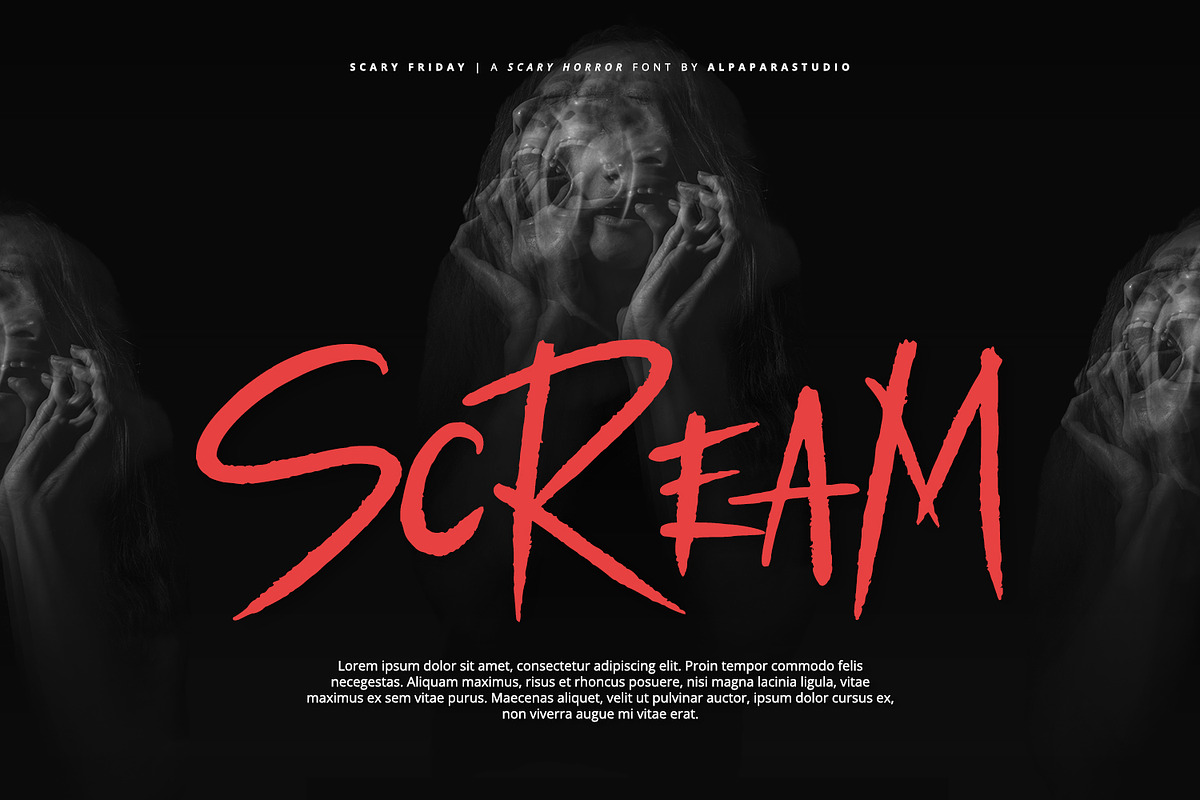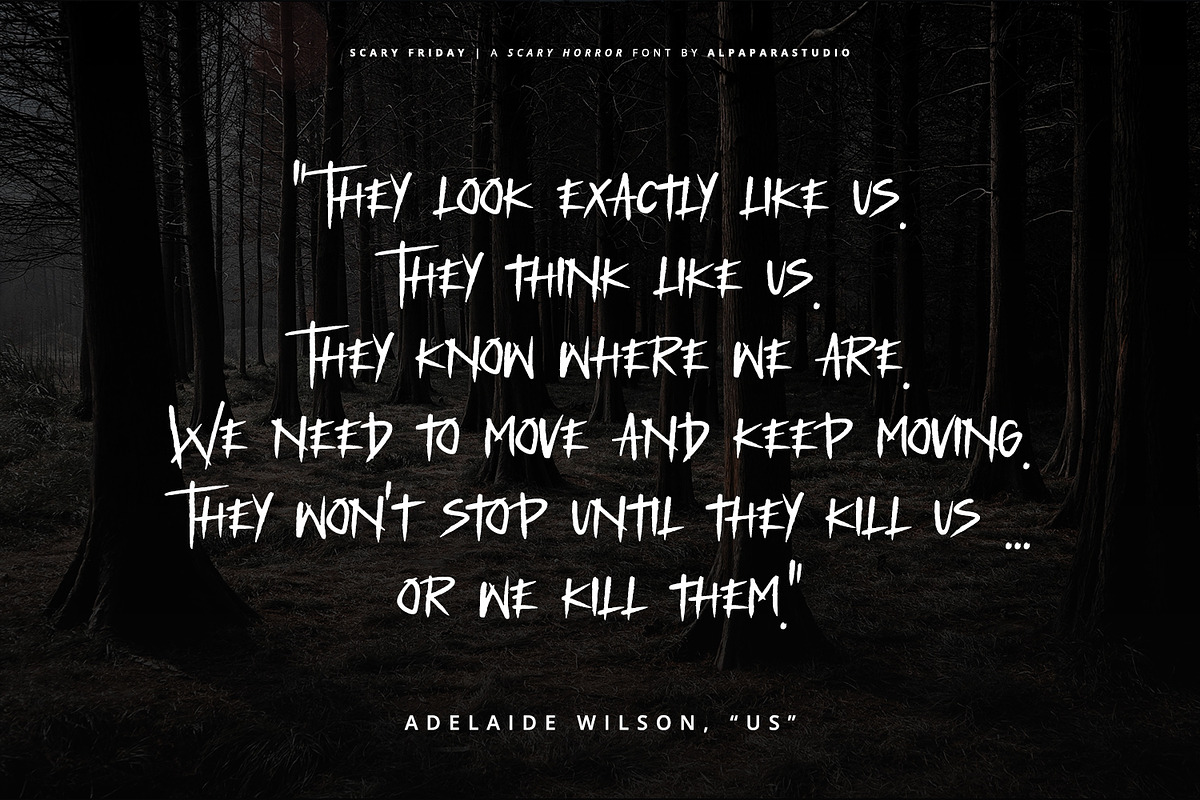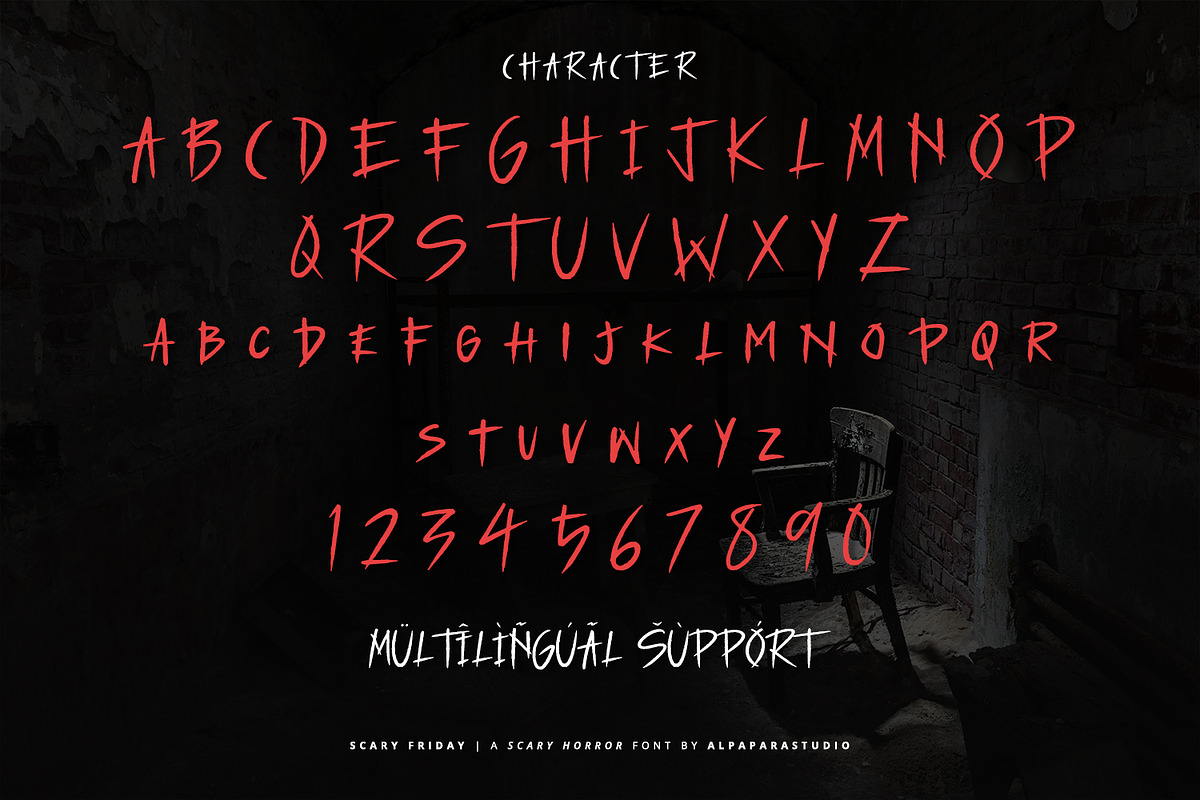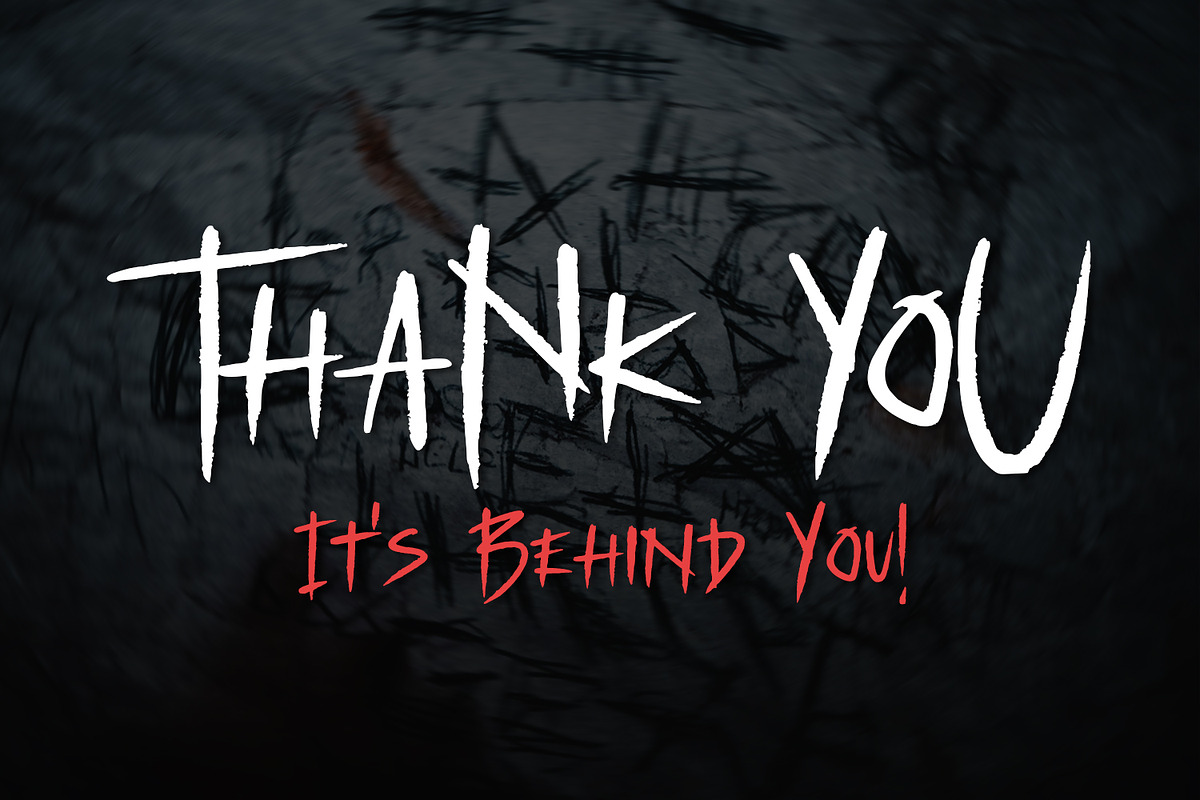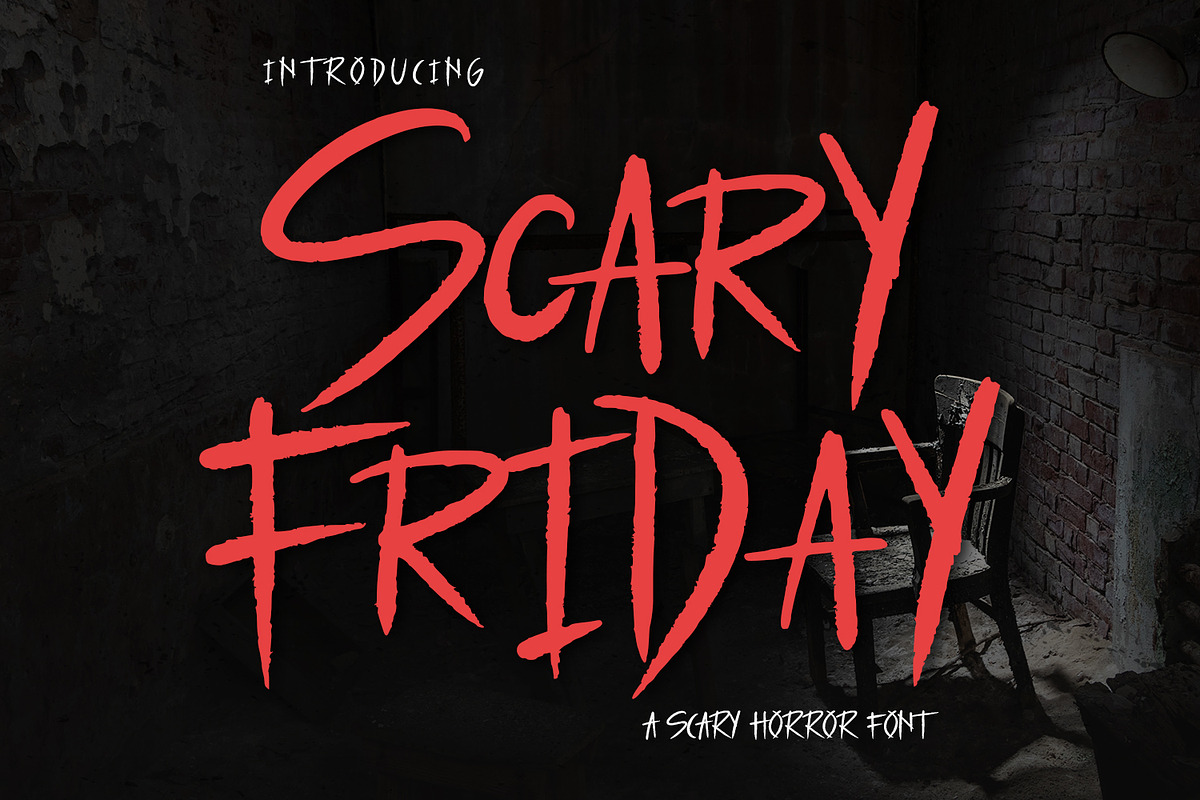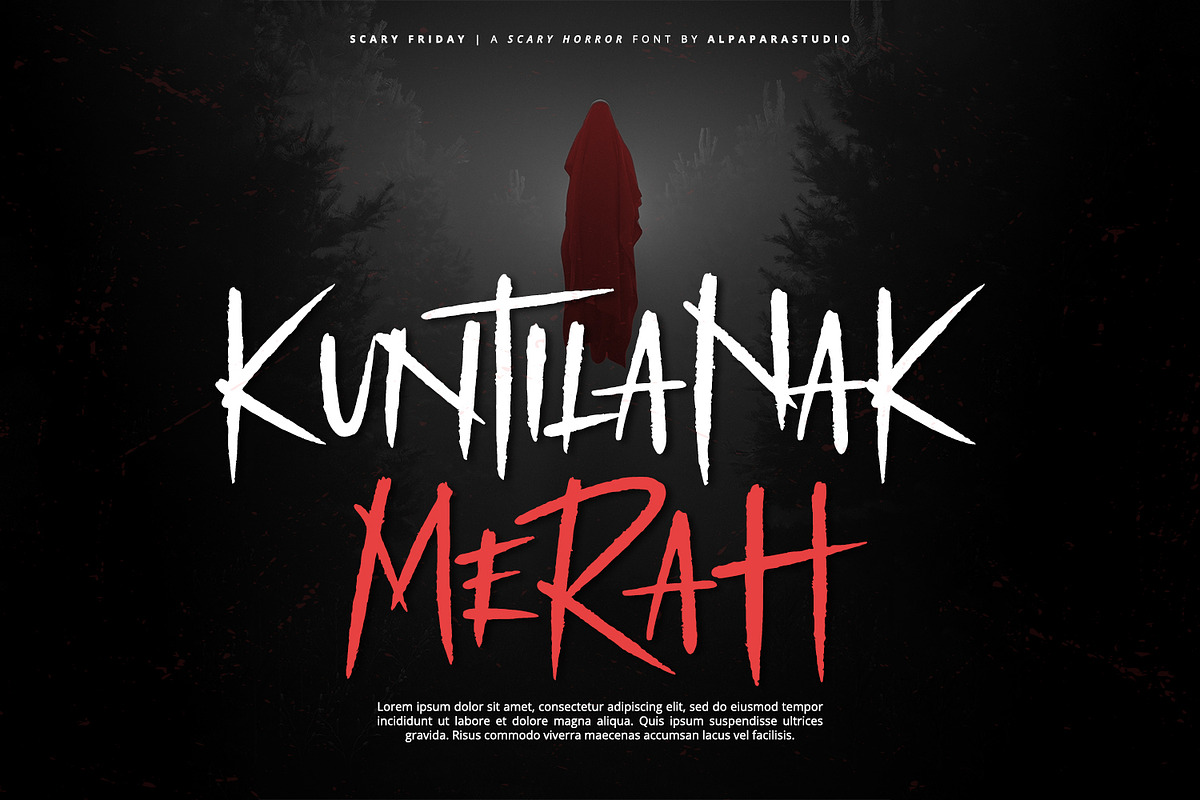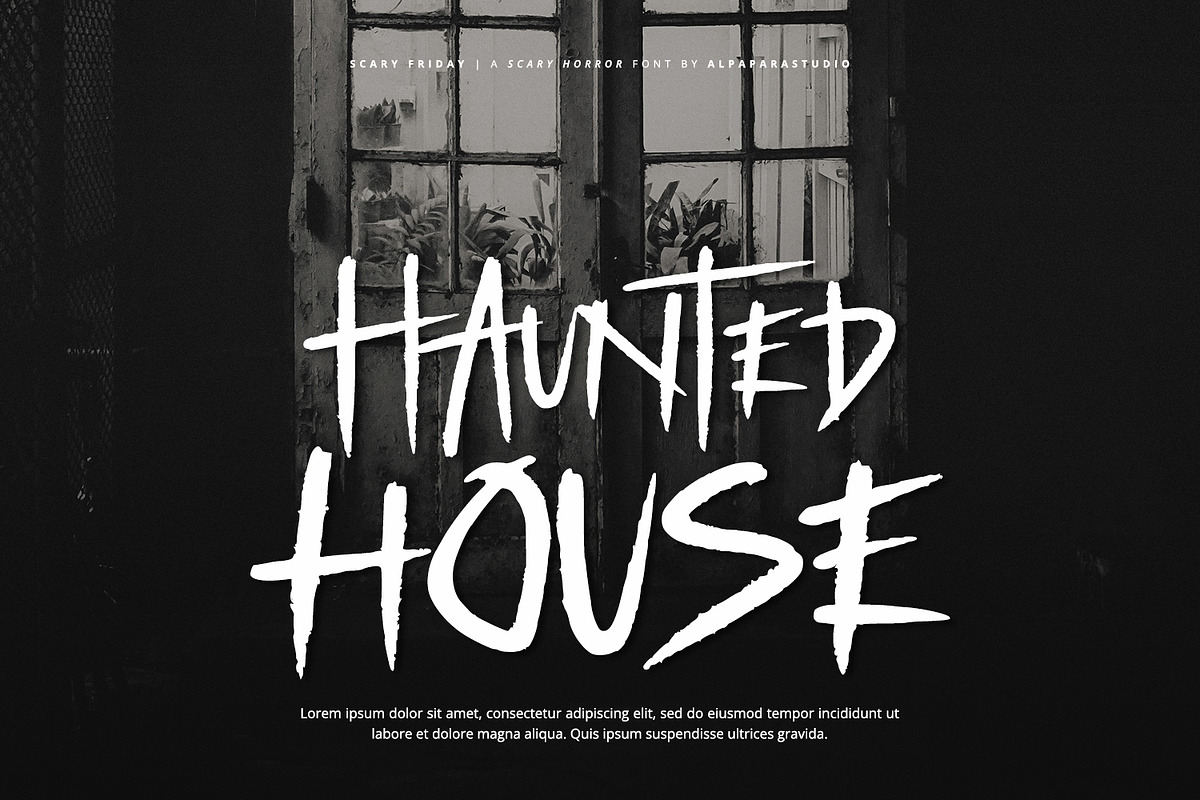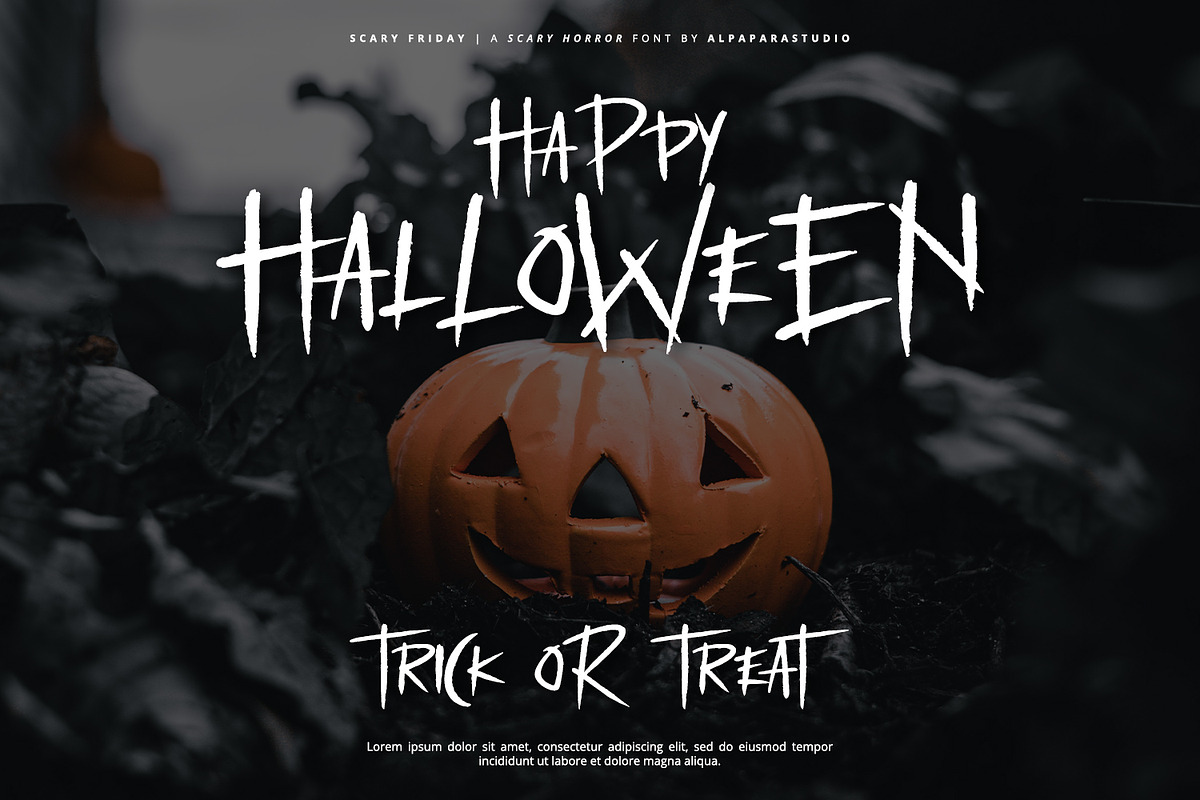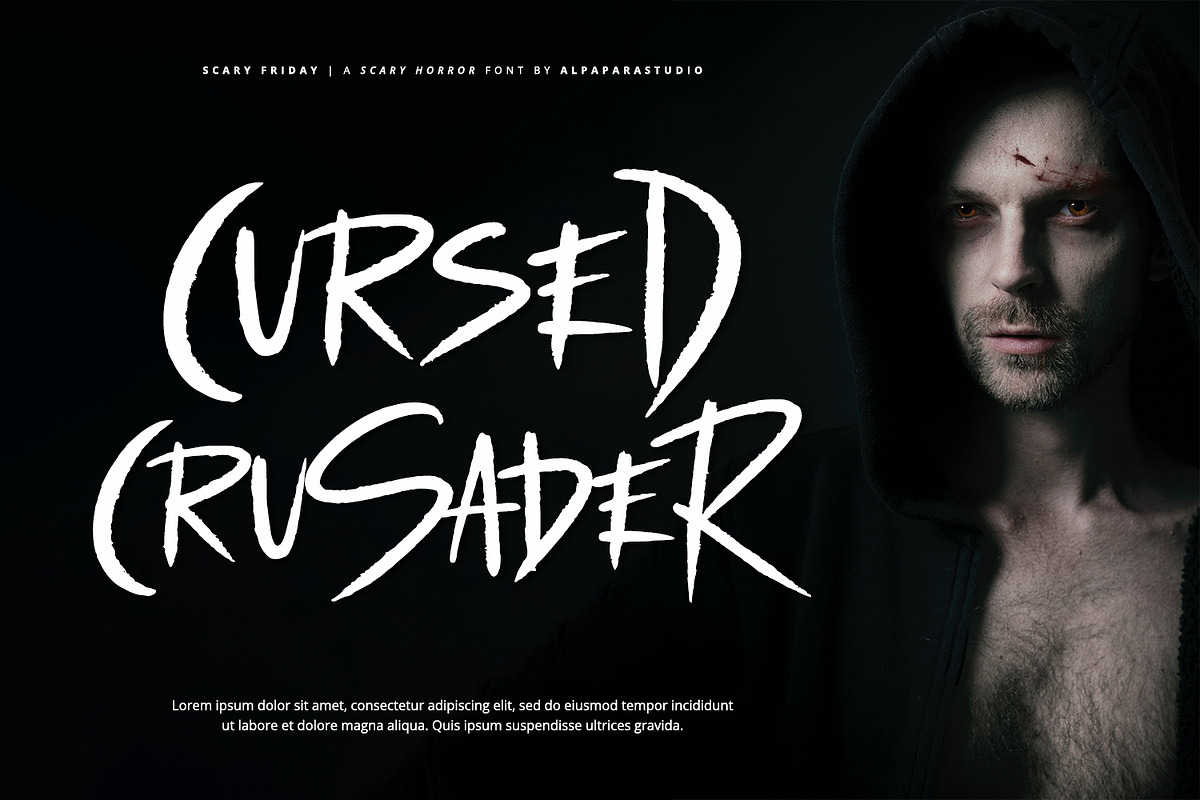
Scary Friday - Horror Display Font
Scary Friday is a stunning horror display font with modern feels. It will be perfectly used for Branding, Logo Design, Lettering, Logotype, Clothing, Poster, magazine, packaging, posters, shopping bags, t-shirts, book covers, photography, special events and other design project.